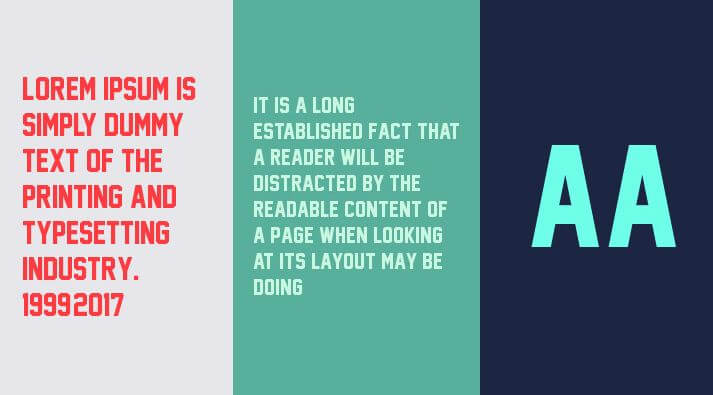
Introducing a sans serif font family the jersey m54 font. The designer has designed it to be pleasant to learn at very small sizes like taglines or lengthy text paragraphs.
It featuring the giant x-peak, rather condensed letterforms like chicago font, moderate diagonal stress, as good as open types. Therefore, it’s common to think regardless of the particular shapes it has adopted for monitors.